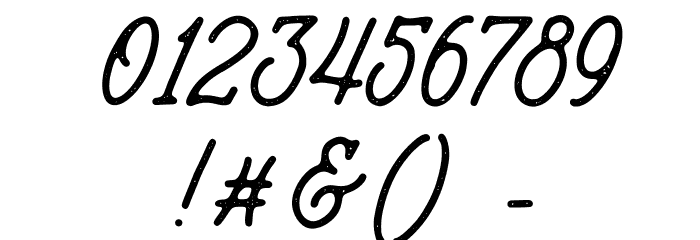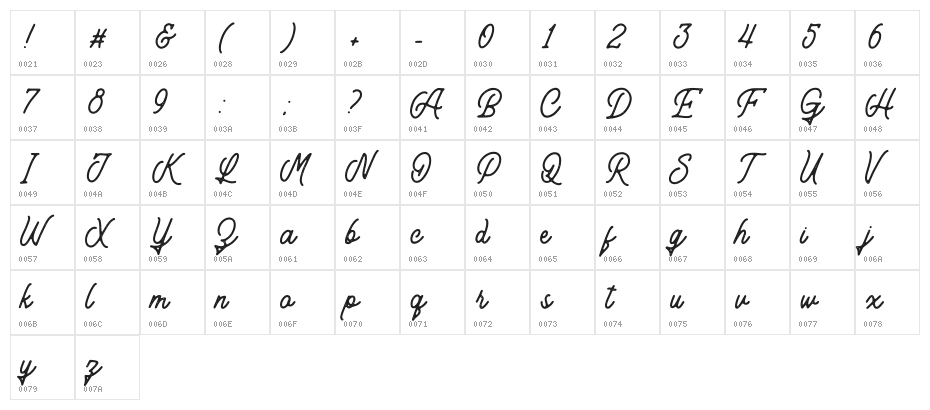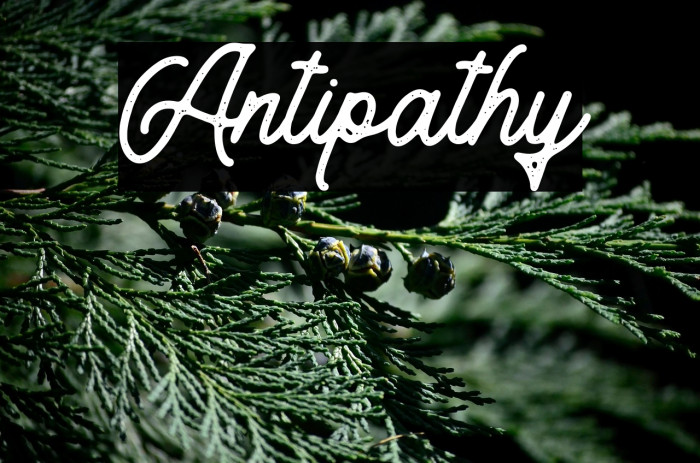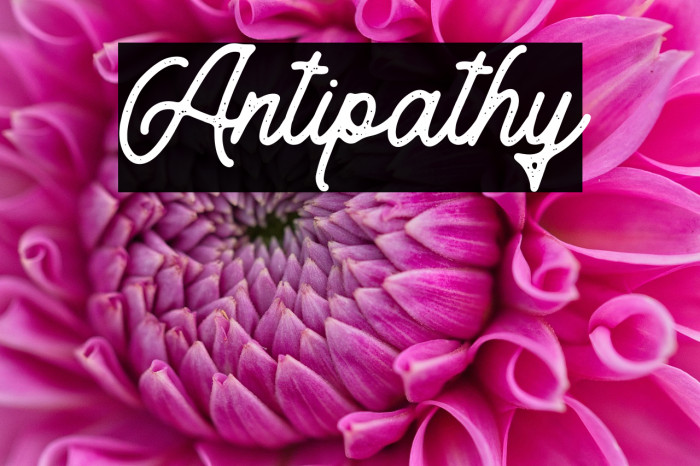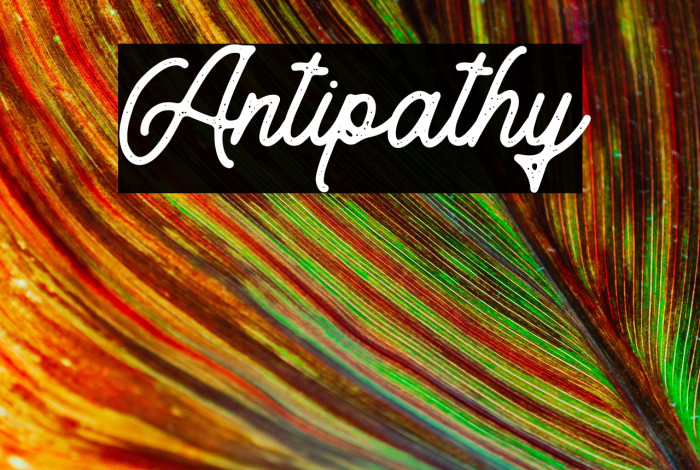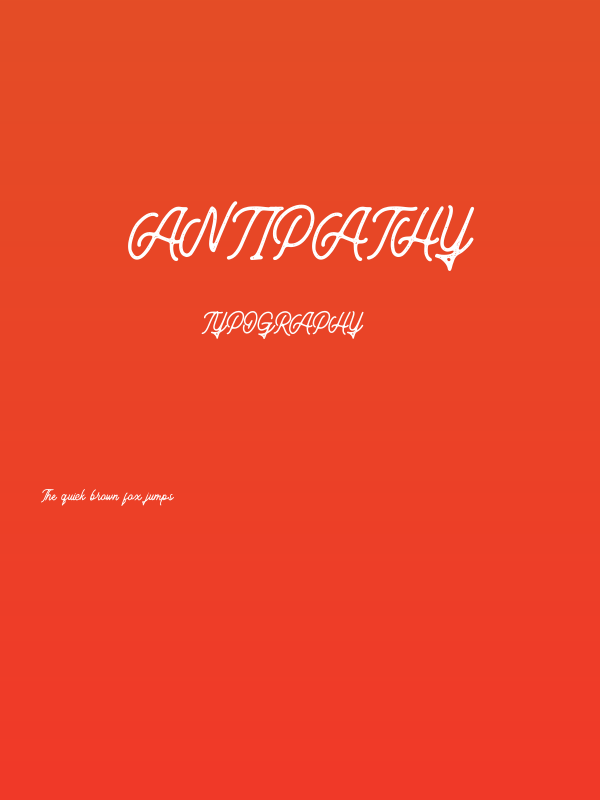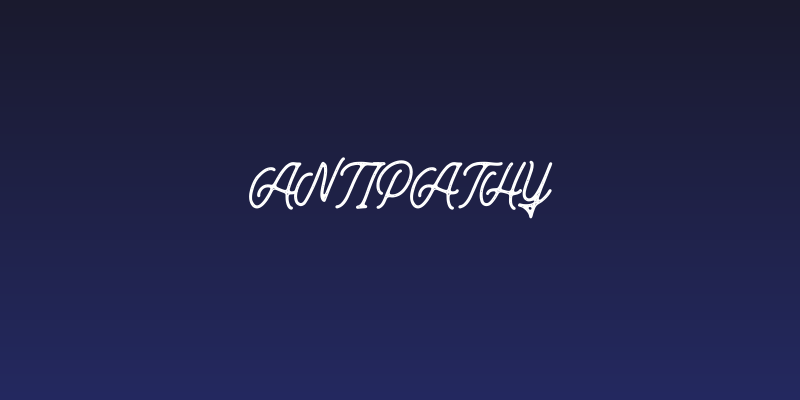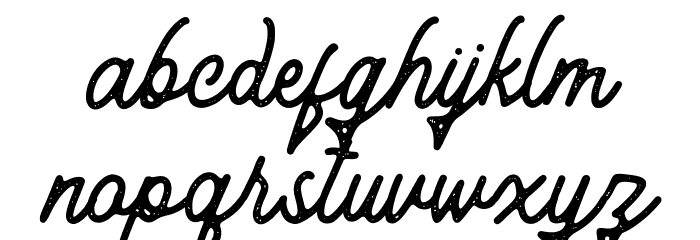
Antipathy Font
Antipathy Description
This font features a flowing, cursive style with elegant loops and swashes, giving it a handwritten appearance. The characters are connected, creating a seamless and fluid look. The uppercase letters are slightly larger and more ornate, while the lowercase letters maintain a consistent and smooth flow. The numbers and special characters are designed to match the overall script style, ensuring uniformity across all elements. The font's strokes vary in thickness, adding a dynamic and lively feel to the text. This style is reminiscent of traditional calligraphy, yet it maintains a modern touch with its clean lines and balanced proportions.
| Proposed Projects | Ideal for wedding invitations, greeting cards, logos, and branding materials that require a personal and elegant touch. |